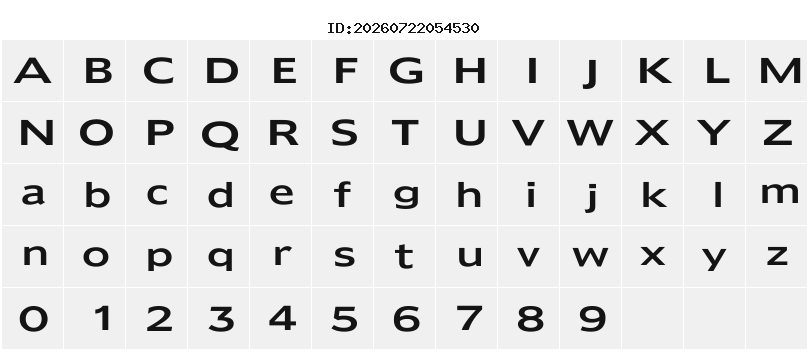
About Humana Wd.ttf
Humana Wd.ttf is a modern, elegant sans-serif font designed for ultimate readability and visual harmony. Perfect for branding, headlines, web design, and print materials.